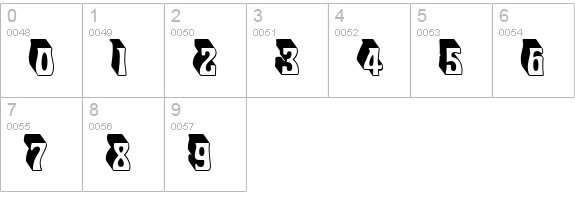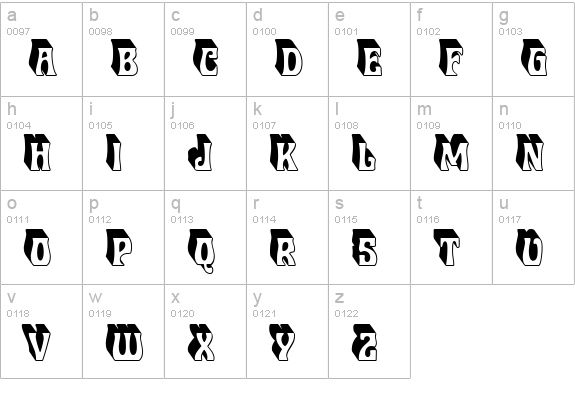
Roberta Raised Shadow Font Details
Roberta Raised Shadow font is an elegant and sophisticated typeface that adds a touch of glamour to any design project. With its unique raised shadow effect, this font exudes a sense of depth and dimension, making it perfect for creating eye-catching headlines and titles. The beautifully crafted letterforms of Roberta Raised Shadow font are sure to make a statement and leave a lasting impression on your audience. Best of all, Roberta Raised Shadow font is available for free download at FontsMarket.com. Whether you're working on a branding project, website design, or any other creative endeavor, this versatile font is a fantastic addition to your toolkit. Download Roberta Raised Shadow font today and elevate your designs with its sophisticated style and artistic flair.